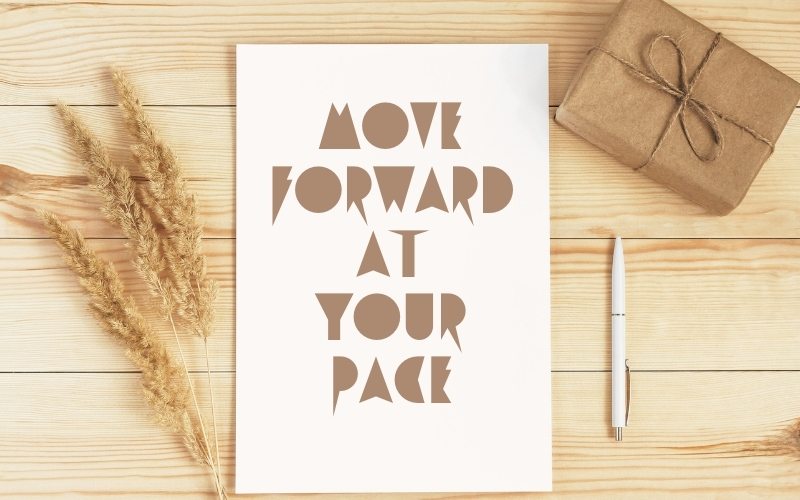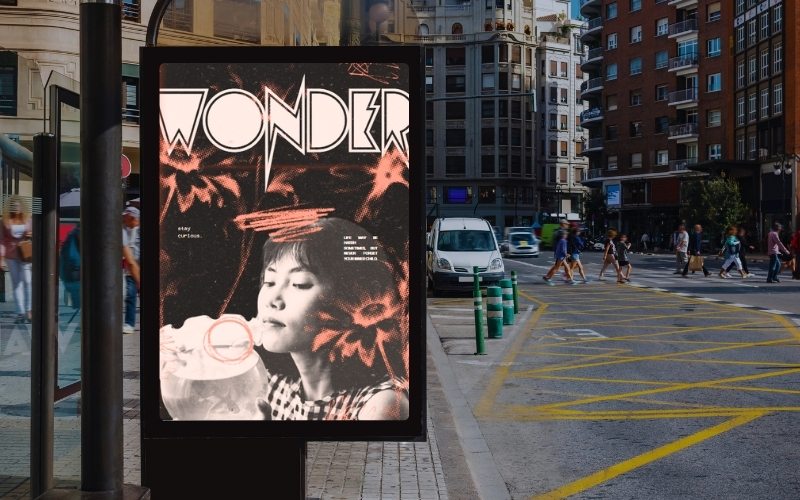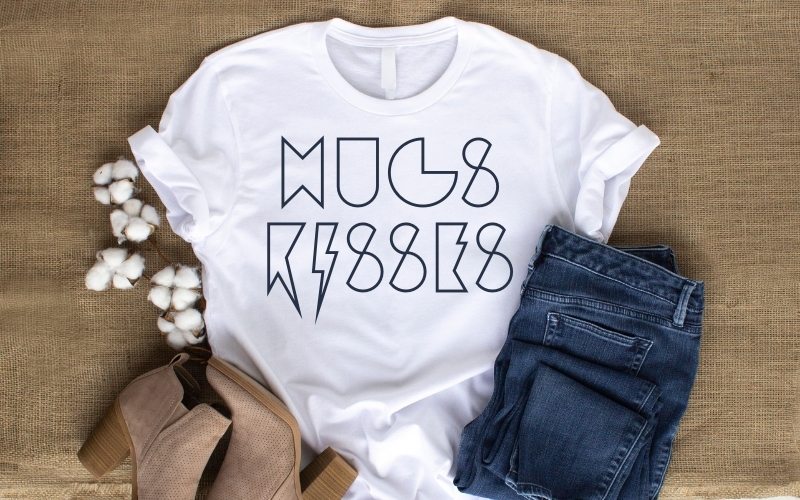
Forma – Free Sharp Font
Sharp Fonts for Bold Designs!
Creating eye-catching designs requires a sharp font that makes a bold statement.
Presenting Forma, a free sharp font that offers a variety of striking styles.
Forma is a striking, versatile font bundle designed to elevate creative projects with bold, sharp lettering.
It features a variety of styles, including regular, rough, stripes, black bold, and strokes, making it perfect for a wide range of design needs.
The font has been crafted with attention to detail, allowing you to convey both strength and creativity in your designs.
Styles included in the Forma Sharp Font:
• Regular font style
• Rough font style
• Stripes font style
• Black Bold font style
• Strokes font style
• Font Styles: Regular, Rough, Stripes, Black Bold, Strokes
Here's a preview of the Free Sharp Font!
Pointy font featured on a roadside poster, capturing attention with its sharp and striking lettering in a bold, urban environment
Forma font printed on a trendy t-shirt, demonstrating its creative adaptability and bold impact in casual, everyday fashion
Sharp font displayed on an elegant, framed paper layout, showcasing its bold and versatile typography styles in a sleek and professional setting.
What Can You Create with Forma?
Forma sharp fonts are your go-to choice for turning ordinary ideas into extraordinary designs.
• Need a Bold Logo? Forma’s sharp styles make your brand unforgettable.
• Planning an Event? Create stunning invitations that set the perfect mood.
• Running Social Media? Add some edge to your posts with striking typography.
• Customizing Merch? Personalize T-shirts, mugs, and more with flair.
• Just Feeling Creative? Craft posters or artwork that speak volumes with every letter.
Whatever your project, Forma’s versatile styles make it effortlessly unique.